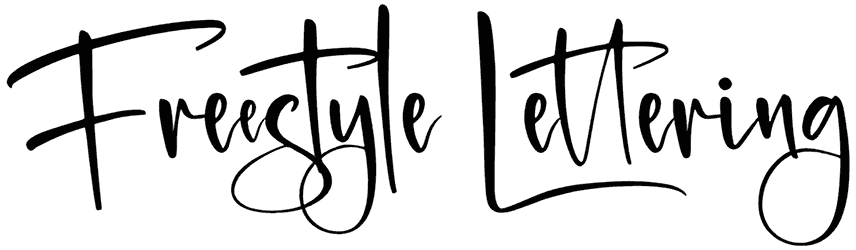
Freestyle Lettering Font
Freestyle Lettering has a flow to connect the audience with your goals and can bring a sense of trust and credibility to your brand. This handwritten font is an elegant and powerful suggestion for those who want a personal touch in their writing and don’t care much about readability.
The quick and intricate texture of both styles of this handwritten font is guaranteed to present a tall, proud, and carefree look on posters, wedding cards, and friendly invitations.